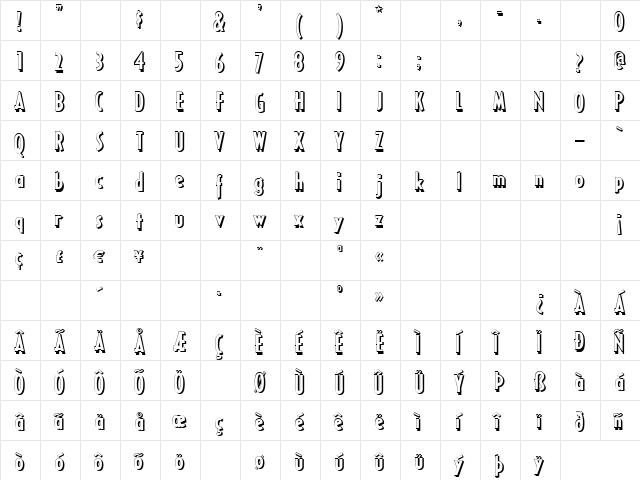
RicksAmericanNF Regular
Design Context for RicksAmericanNF Typeface
RicksAmericanNF is a composed and adaptable typeface that performs quietly and consistently across a wide range of design contexts.